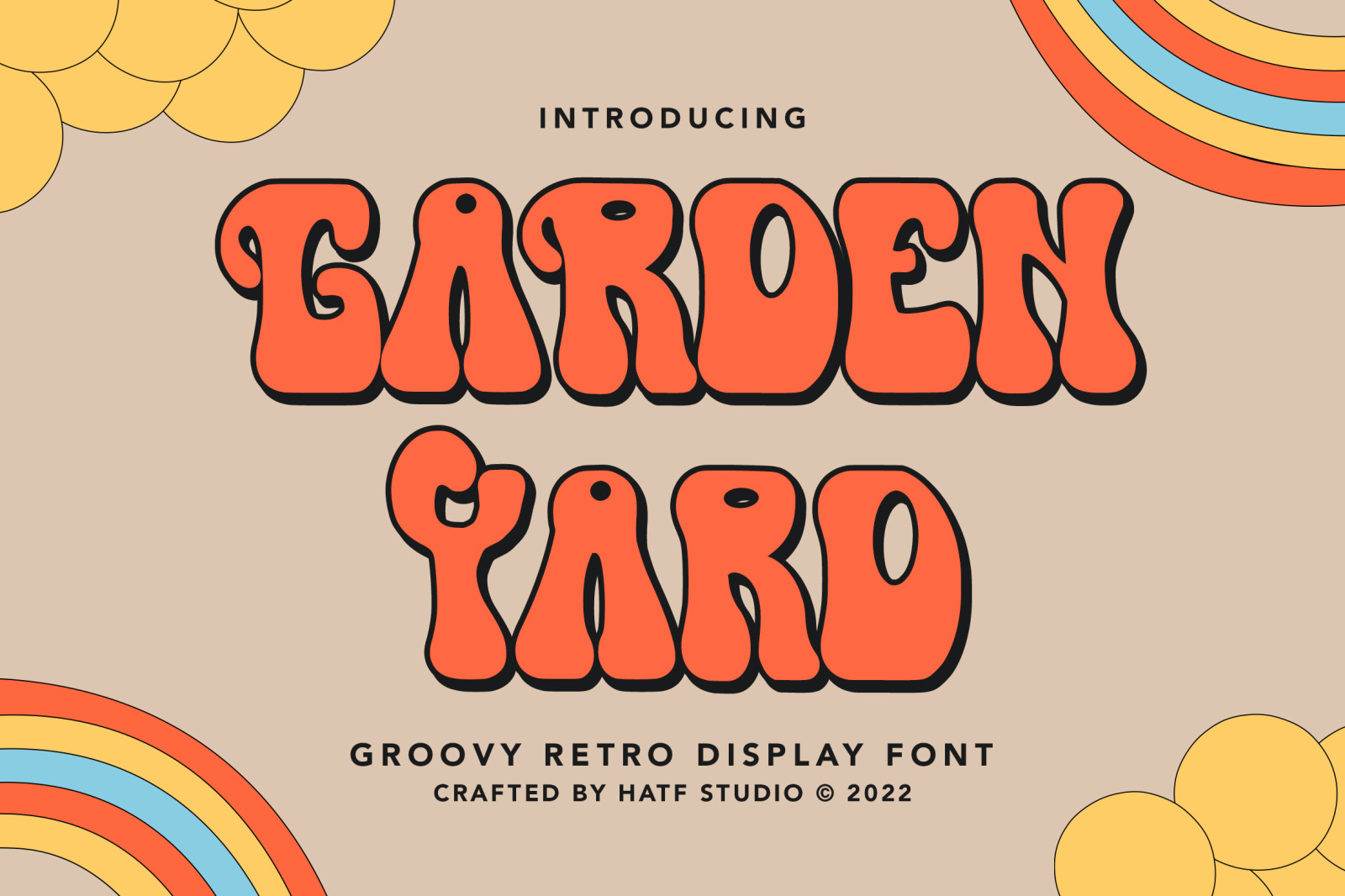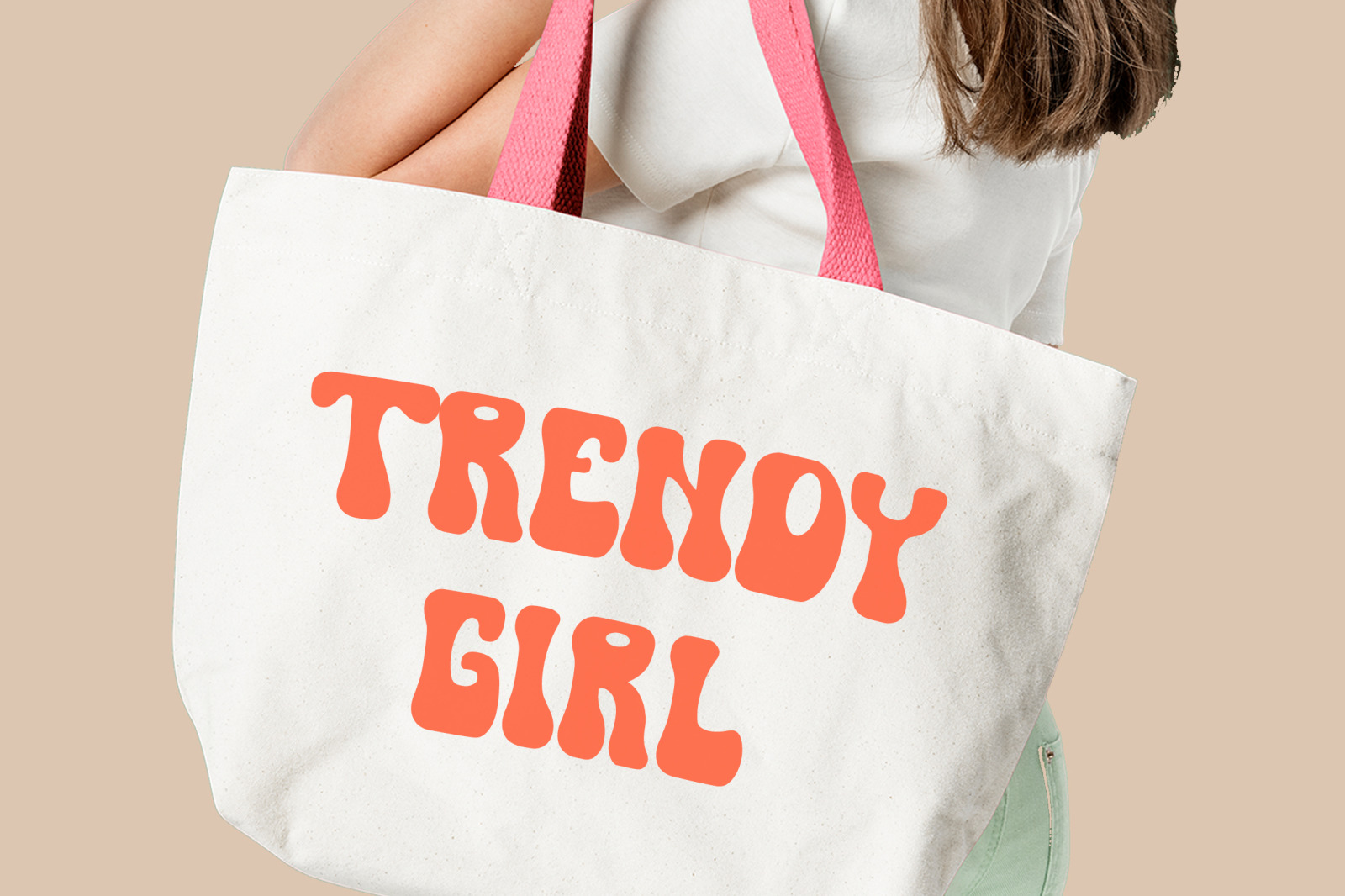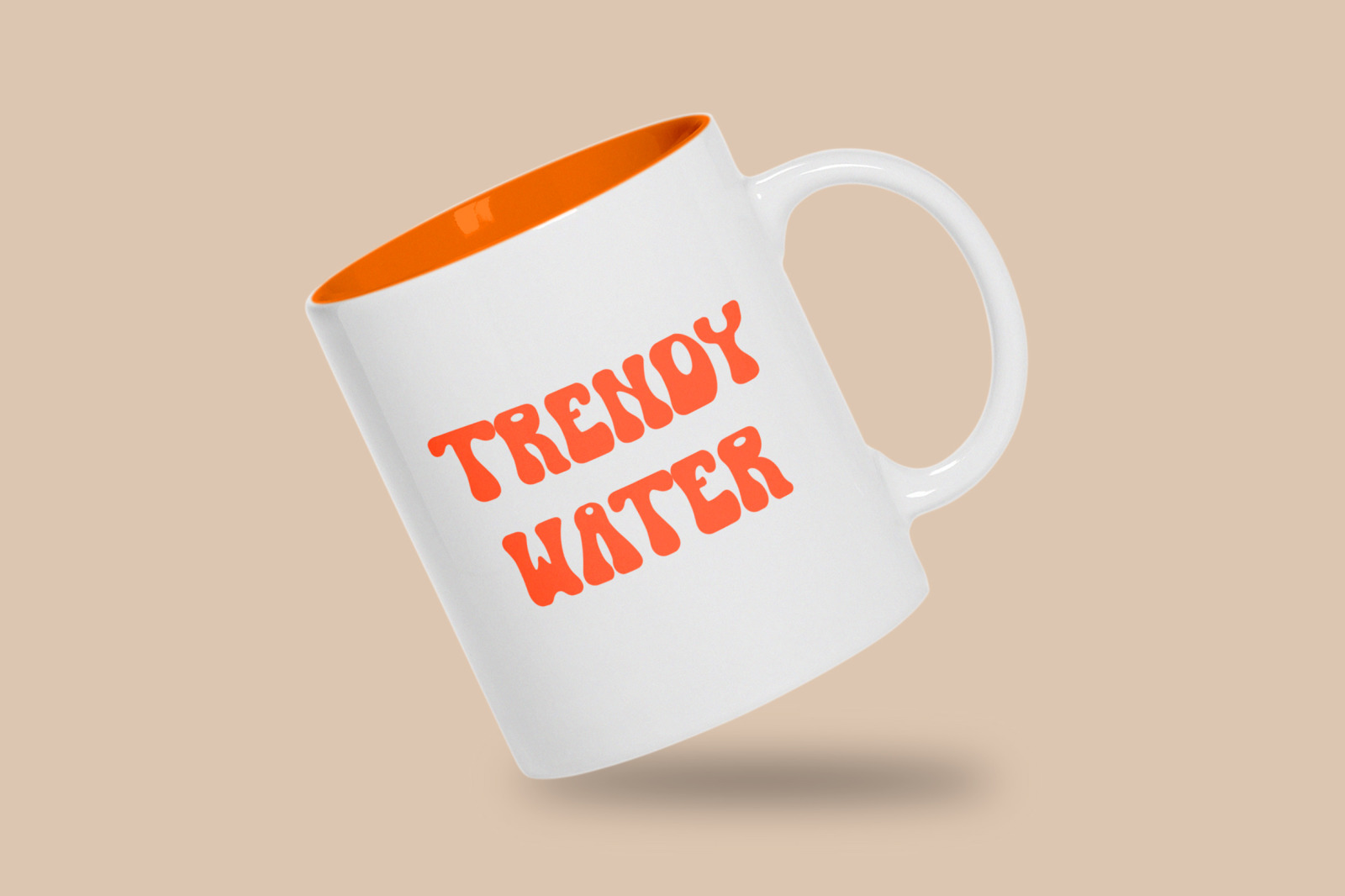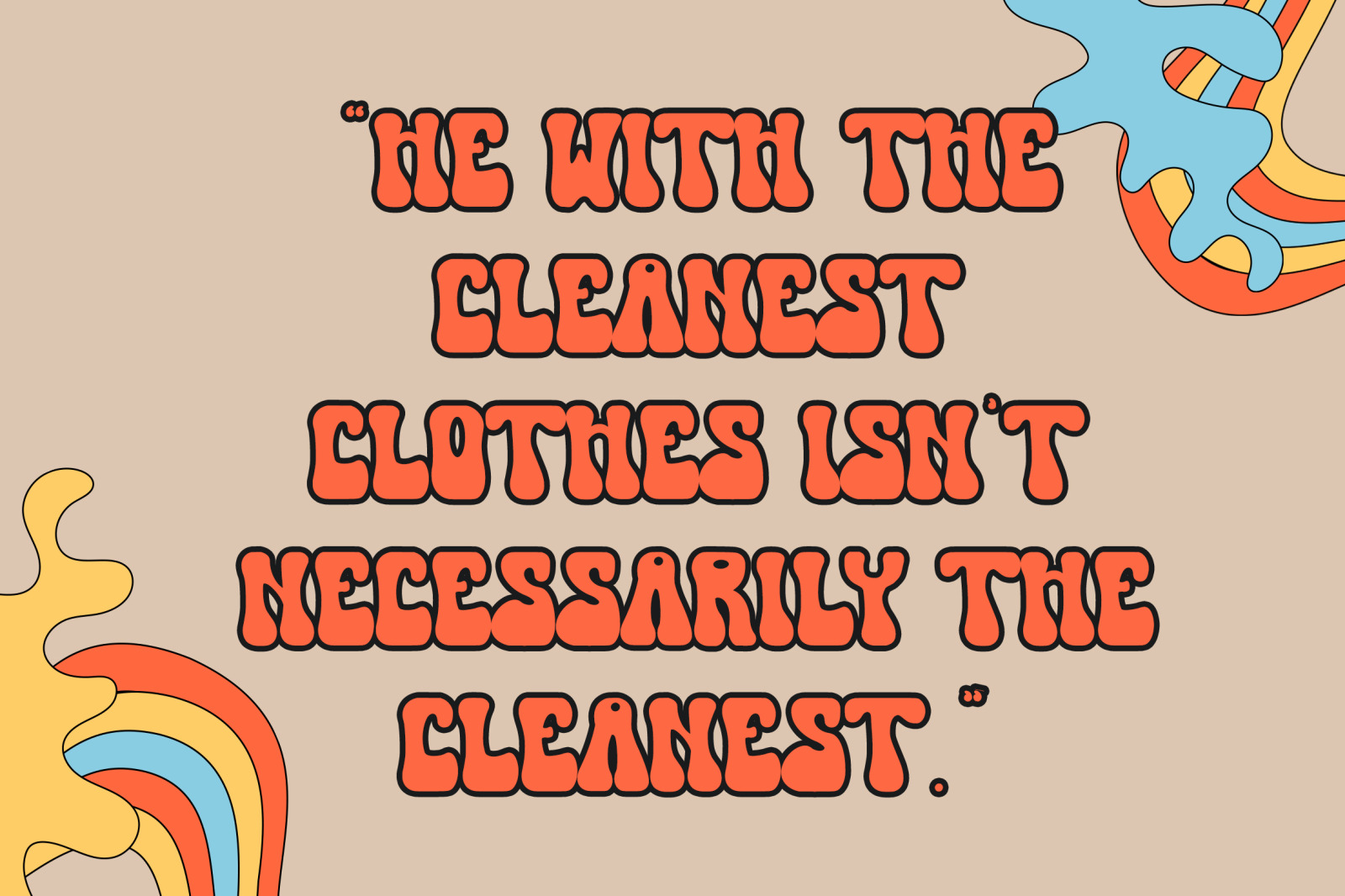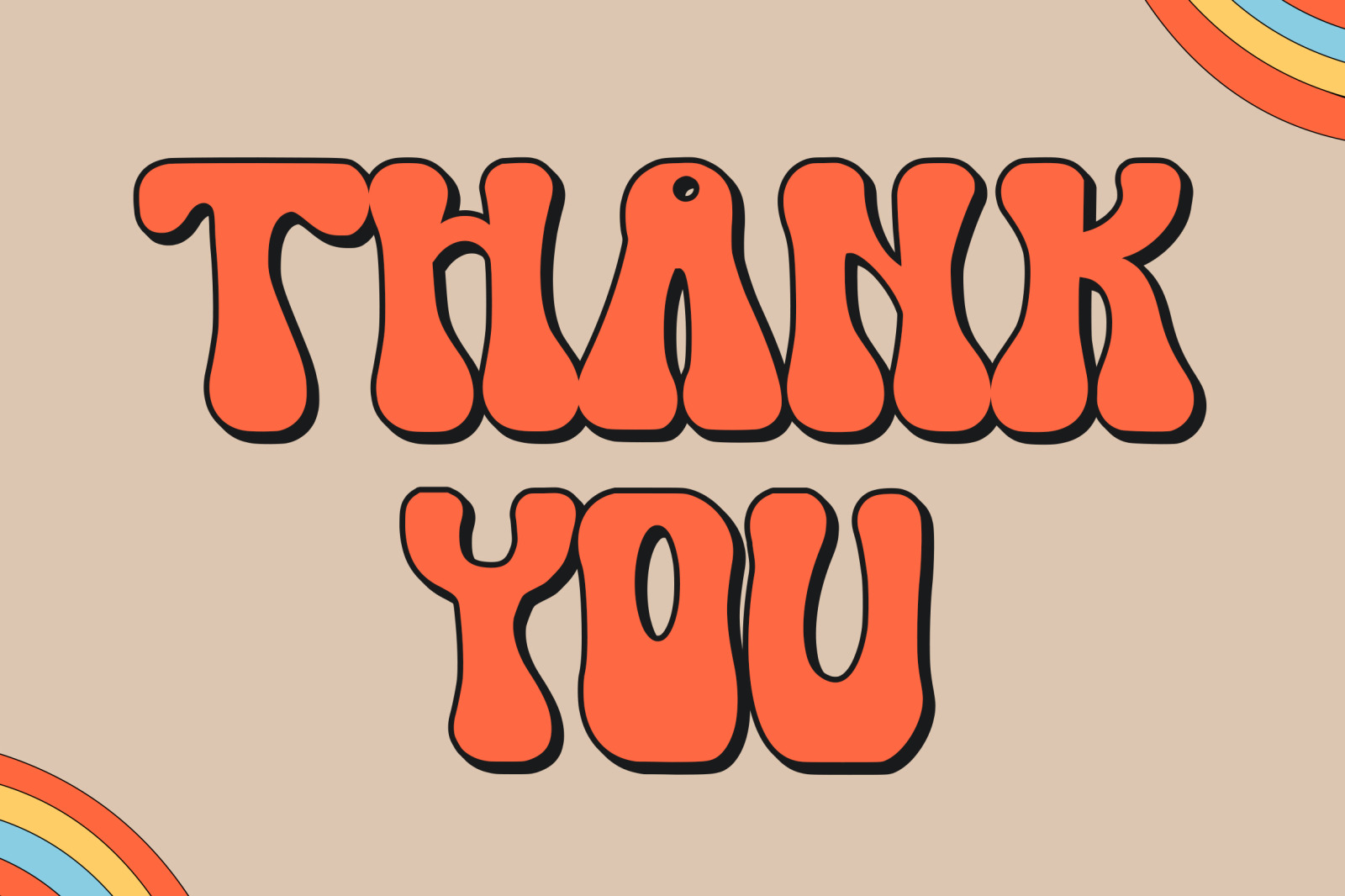
Garden Yard Font
Garden Yard is a Groovy Retro Display Font. A typeface that captures the spirit of the retro era with a funky and vibrant touch. Inspired by typography designs of the 1960s and 1970s, this font exudes a vintage vibe with its curved lines and bold shapes. Each letter in Groovy Retro has a unique character, often with creative and exaggerated decorative elements, creating a striking and inviting look.
This font combines vintage style with a modern feel, creating the perfect balance between nostalgia and modernity. Suitable for use in projects that want to display a funky, cool and retro impression, such as poster, logo or merchandise designs. With its dynamic energy and strong character, Garden Yard will add a distinctive and interesting touch to your designs, bringing back the spirit of a fun and colorful era.